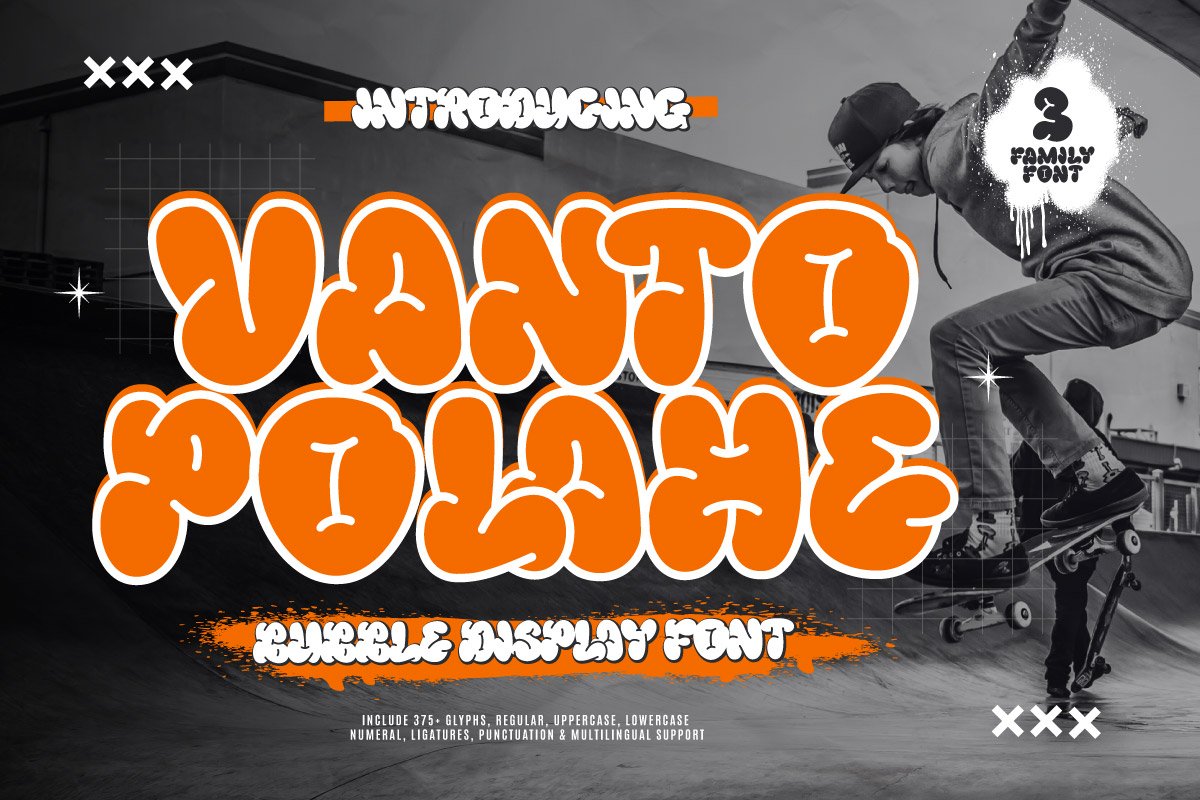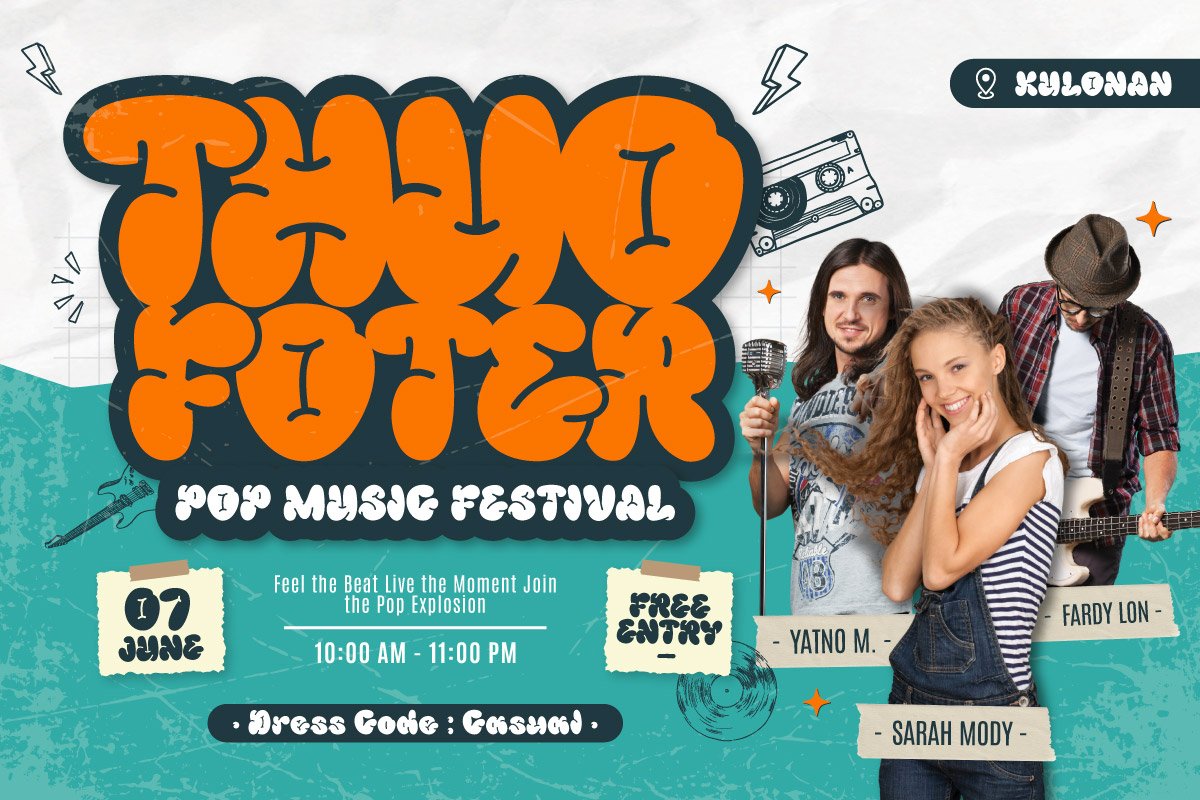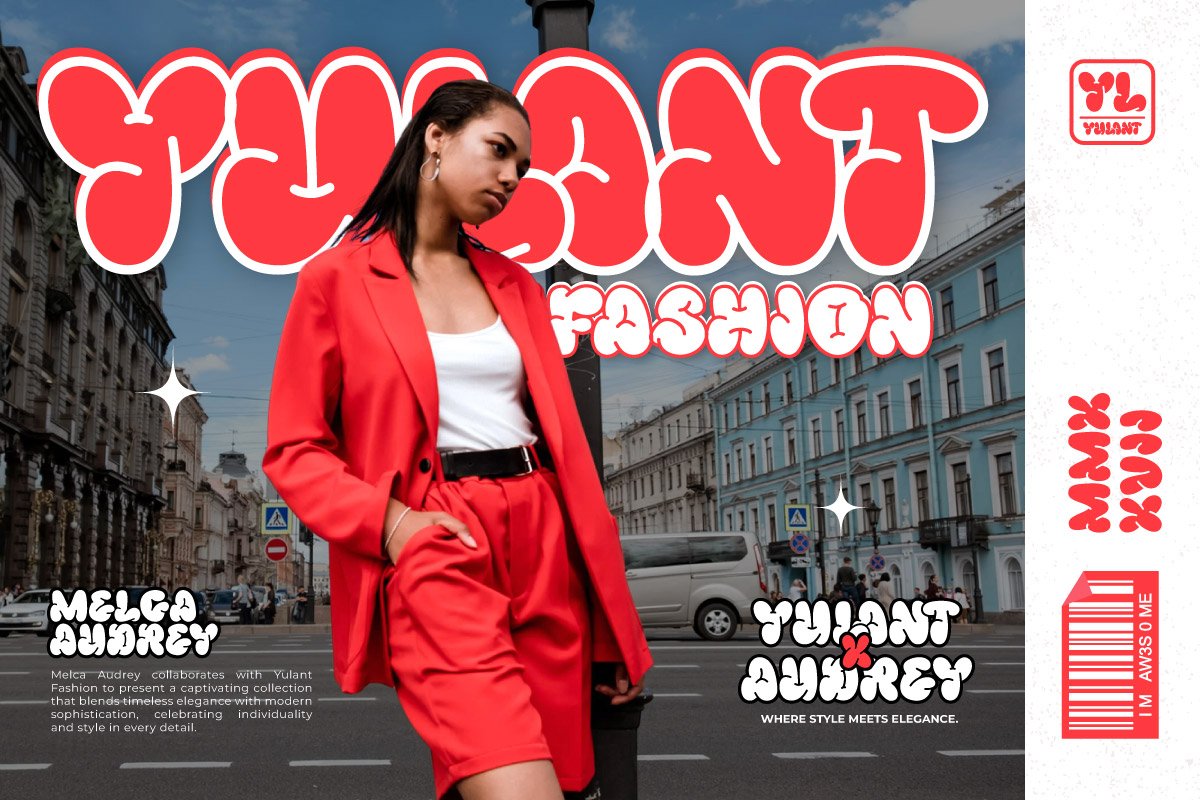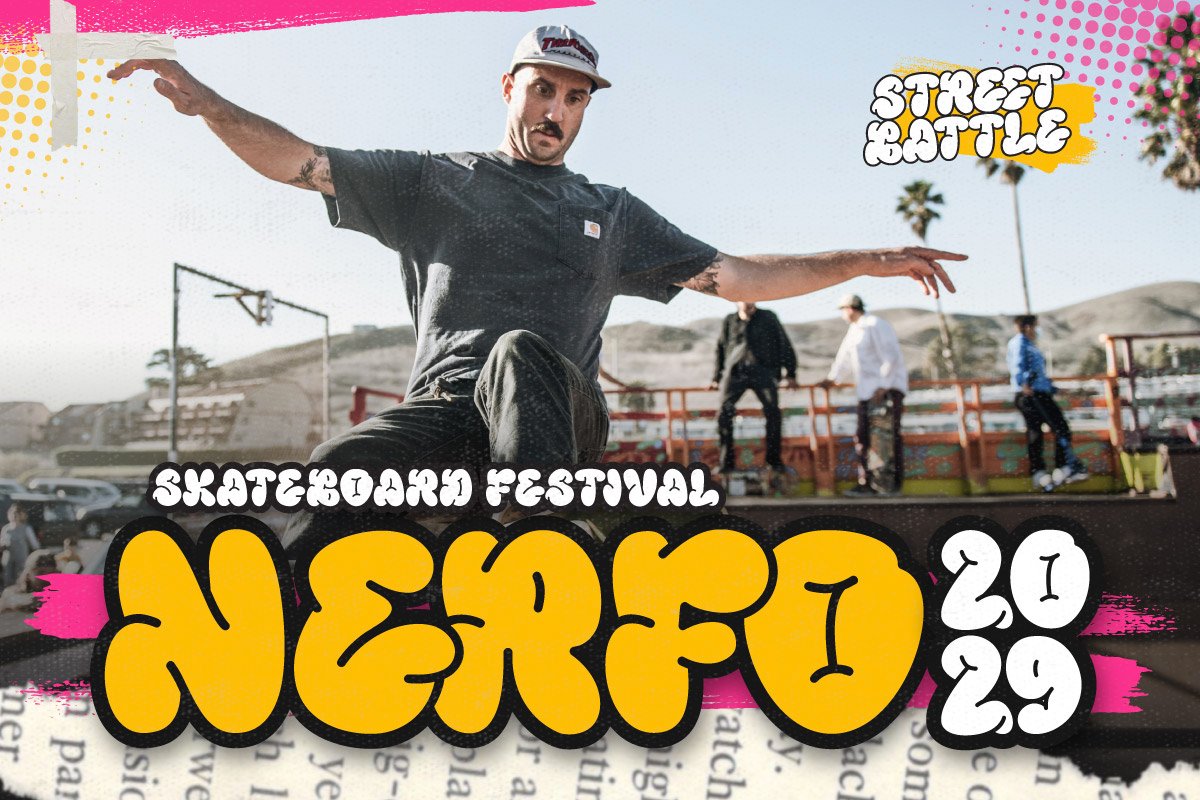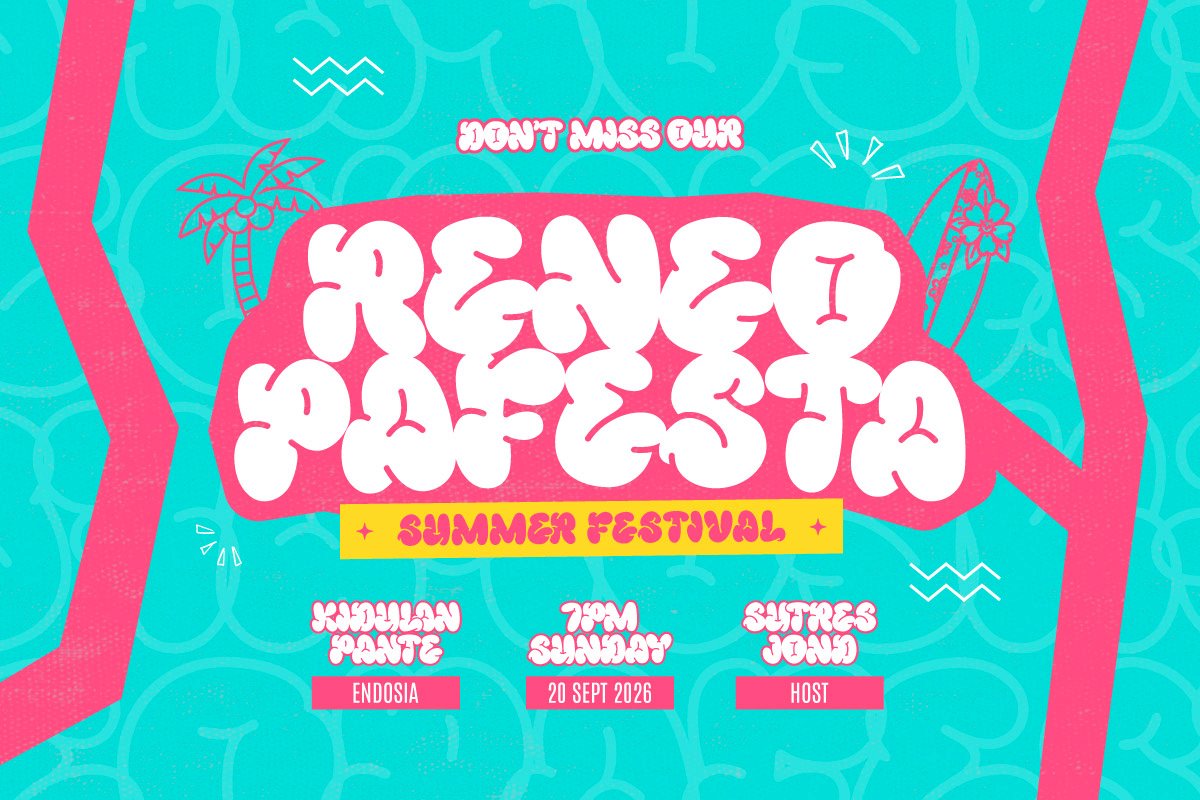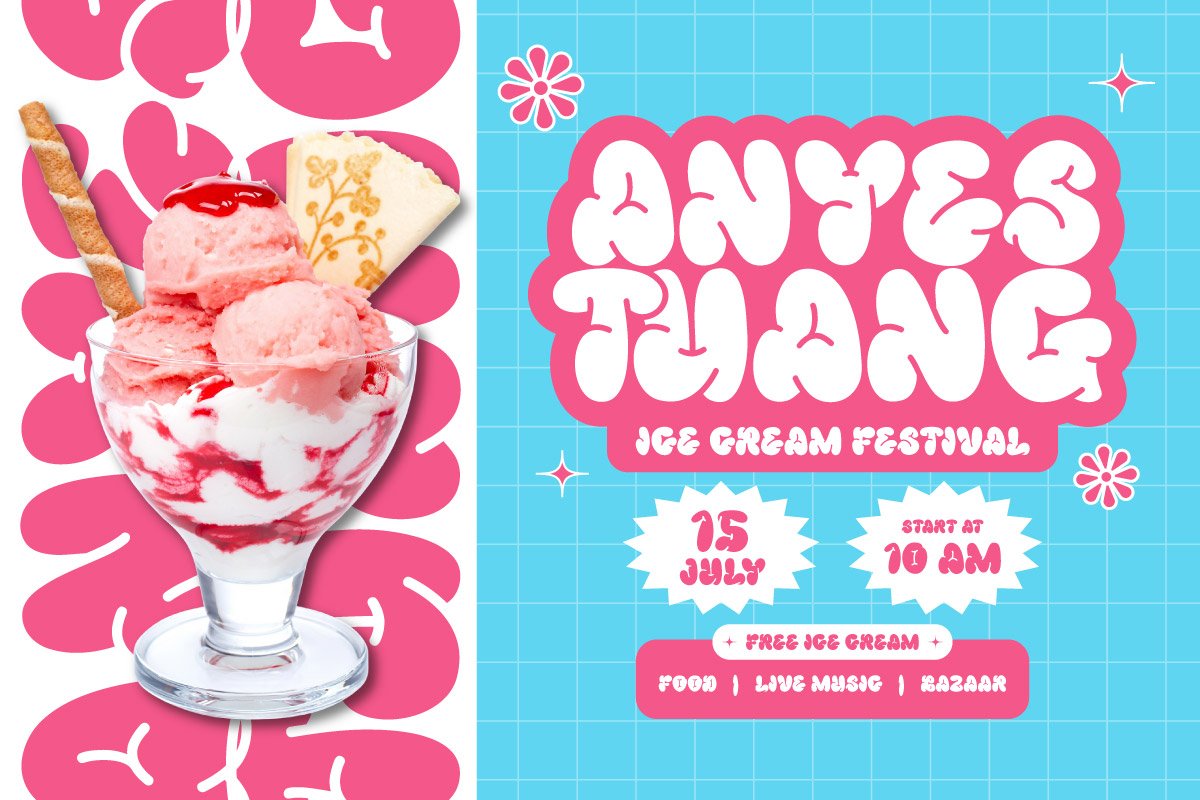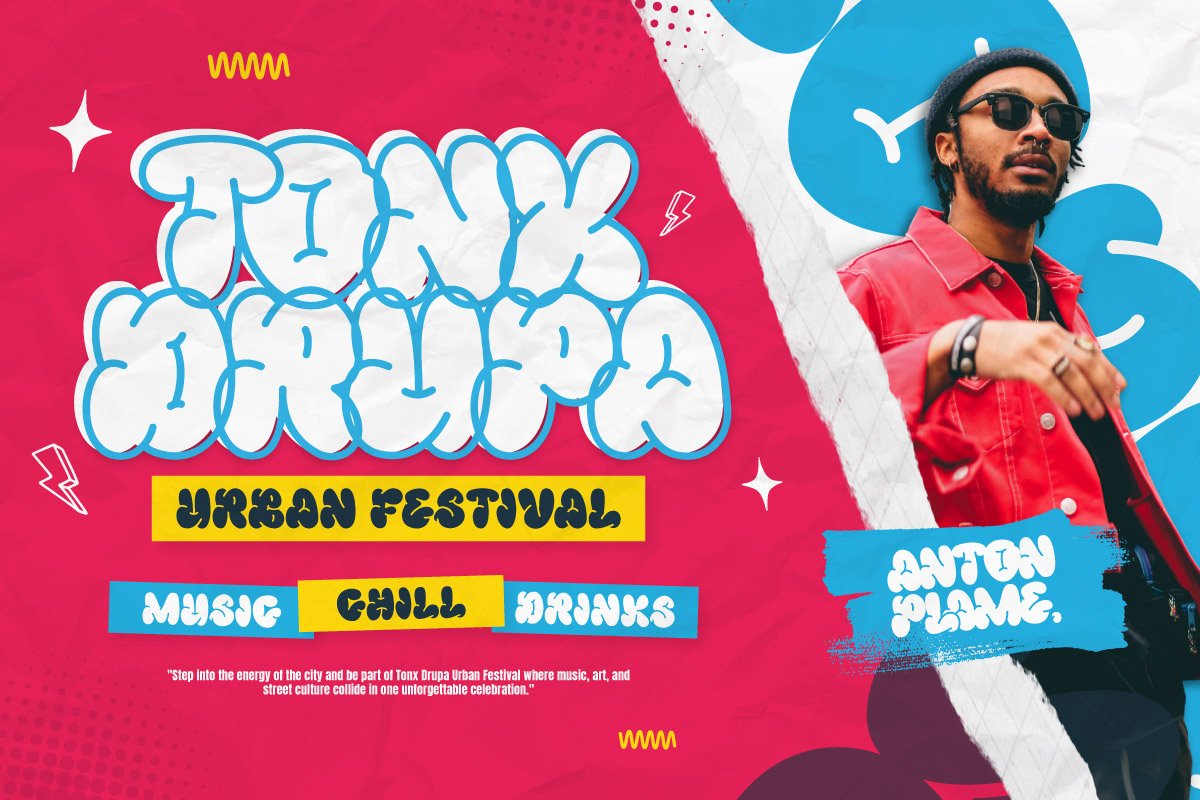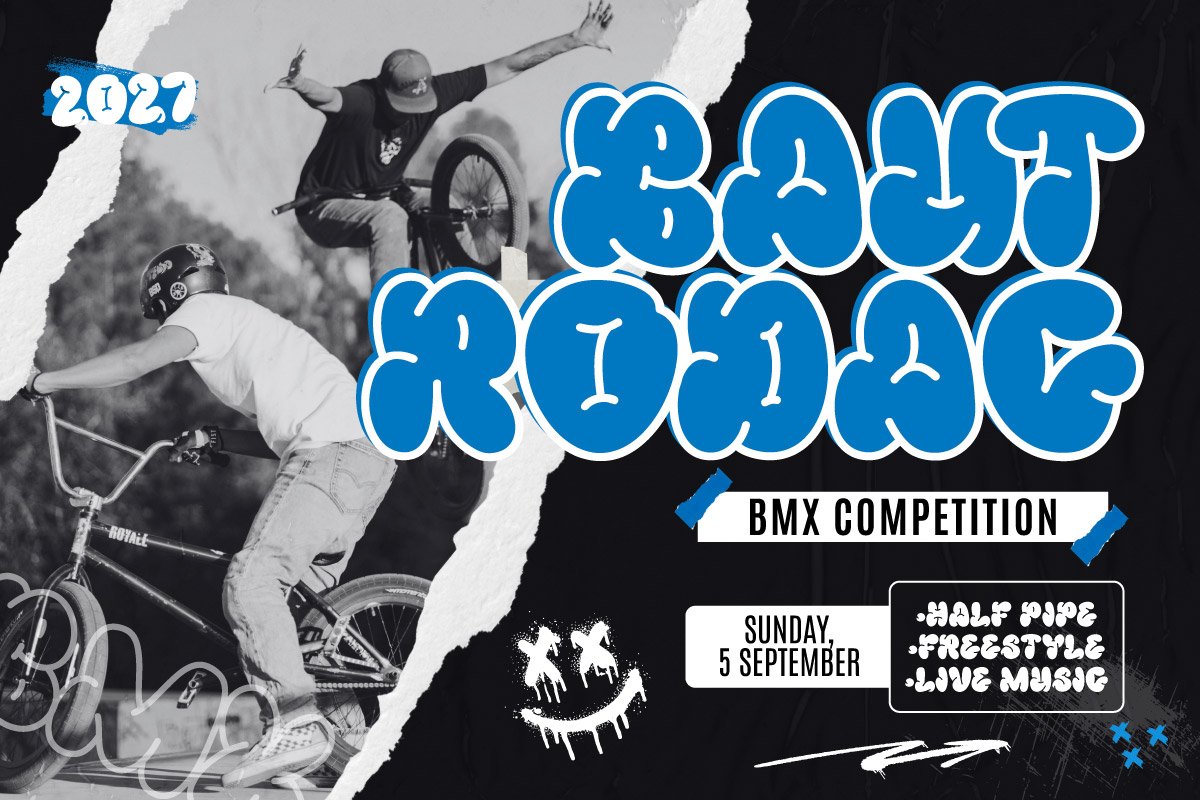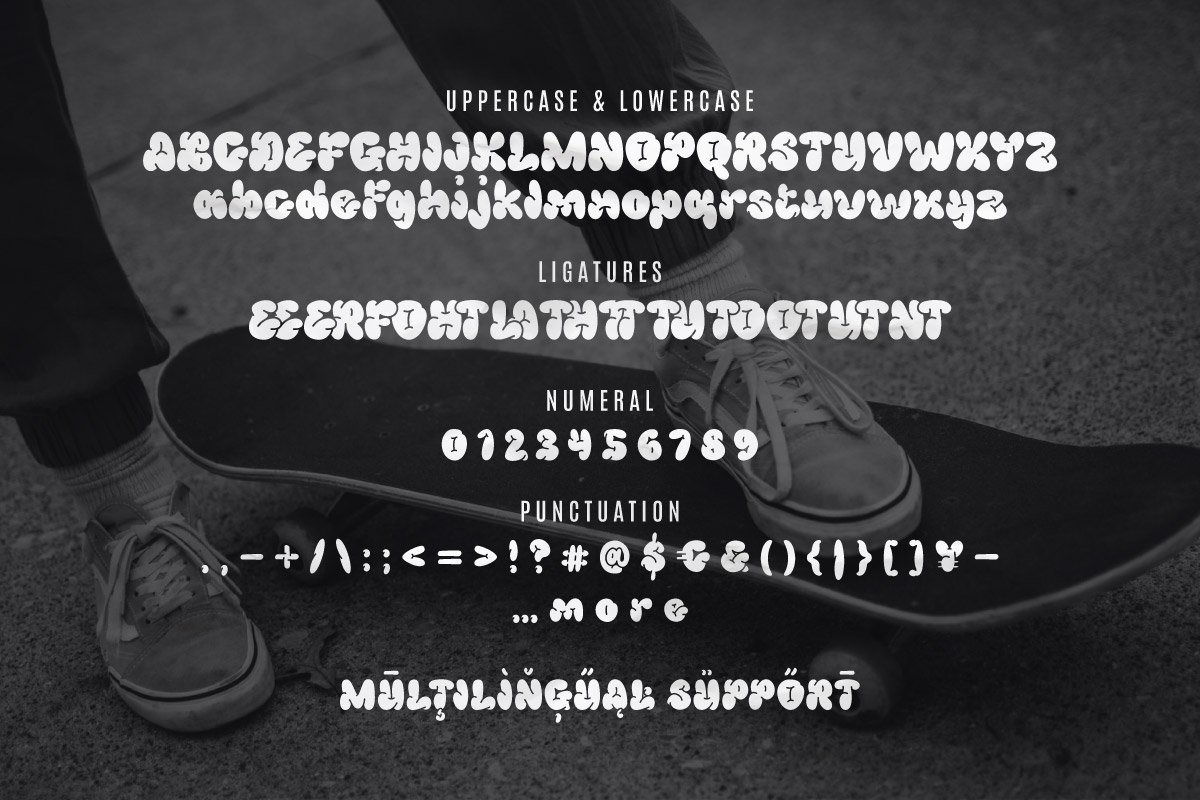
Vanto Polahe – Bubble Fest Font
Vanto Polahe is a bold and playful bubble display font designed to capture the fun, vibrant, and youthful spirit of street culture and festivals. Its rounded, graffiti-inspired letterforms make it perfect for designs that need energy, creativity, and a standout personality.
This font family comes in 3 styles—Regular, Outline, and Solid—giving you flexibility to mix and match for dynamic typography. With 375+ glyphs, including uppercase, lowercase, numerals, punctuation, ligatures, and multilingual support, Vanto Polahe is ideal for posters, music event flyers, skateboarding culture designs, merchandise, social media graphics, and urban branding projects.
Bring your design to life with Vanto Polahe, a font that’s bold, bouncy, and unforgettable!